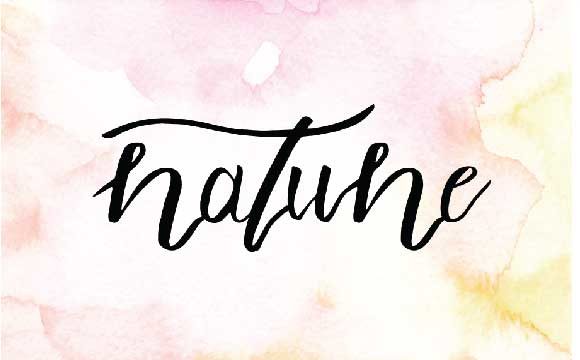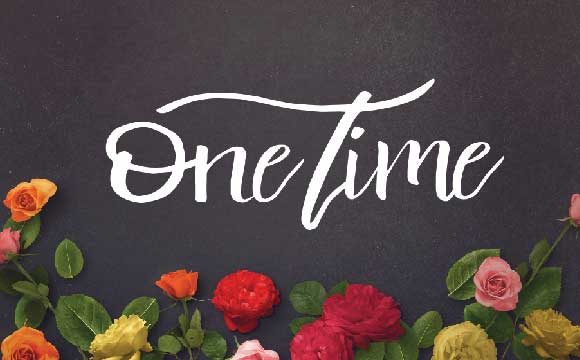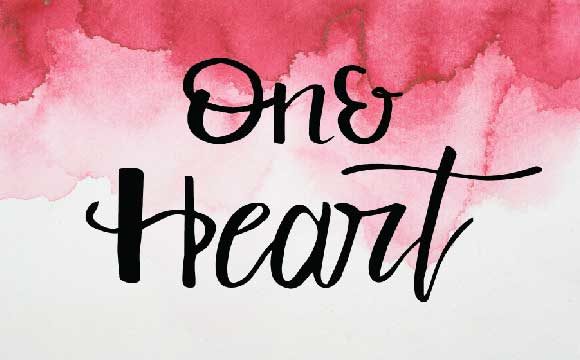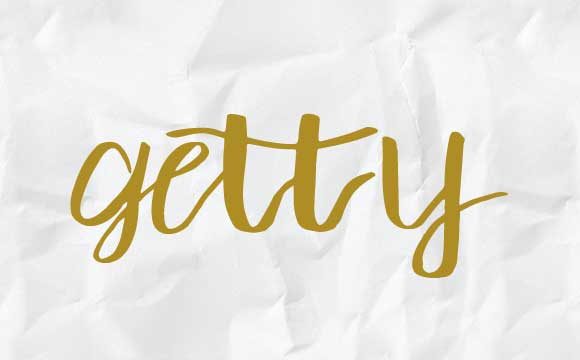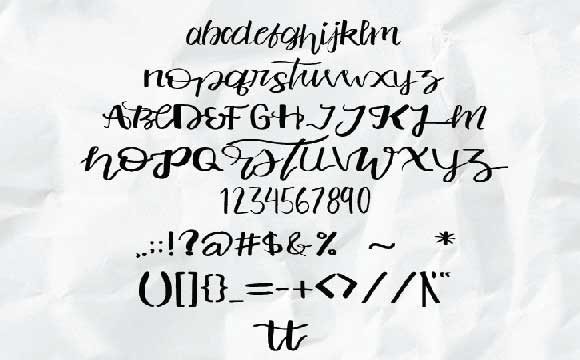
HomeScript FontsNatune Font Script Fonts Natune Font FacebookXPinterestWhatsApp Natune Font Poster 2 Natune Font Poster 3 Natune Font Poster 4 Natune Font Poster 5 About Natune Font Natune is a beautiful and stunning script font. With its authentic lettering, it’s the perfect crafting font! DOWNLOAD ON CREATIVE FABRICAThis font is sold and delivered by Creative Fabrica. Font Canyon may earn a commission if you buy through this link. People also explored Staryo Types Font Wadimore Font Ghoes Balley Font Tokyo Fuku Font Overgreed Font Eleganto Font Farmhouse Christmas Font La Taverna Font Classy Script Font 300 0 TagsNatune Font Previous articleLovina FontNext articleFavor Font LEAVE A REPLY Cancel reply Comment: Please enter your comment! Name:* Please enter your name here Email:* You have entered an incorrect email address! Please enter your email address here Website: Save my name, email, and website in this browser for the next time I comment. Personal Use Free Zroest Personal Use Free Read more about this font Happy Rabbit Personal Use Free Read more about this font Beloved Script Personal Use Free Read more about this font Girl Personal Use Free Read more about this font BLOG Using Fonts in Digital Marketing: Tips to Strengthen Your Brand Identity In the realm of digital marketing, every visual element plays a crucial role in shaping a brand's identity, and fonts are no exception. The... How to Install and Use Fonts on Windows, macOS, and Web Projects Free Fonts Risk: Why Free Fonts Can Be Dangerous for Designers To increase your work productivity, choose the most readable fonts.